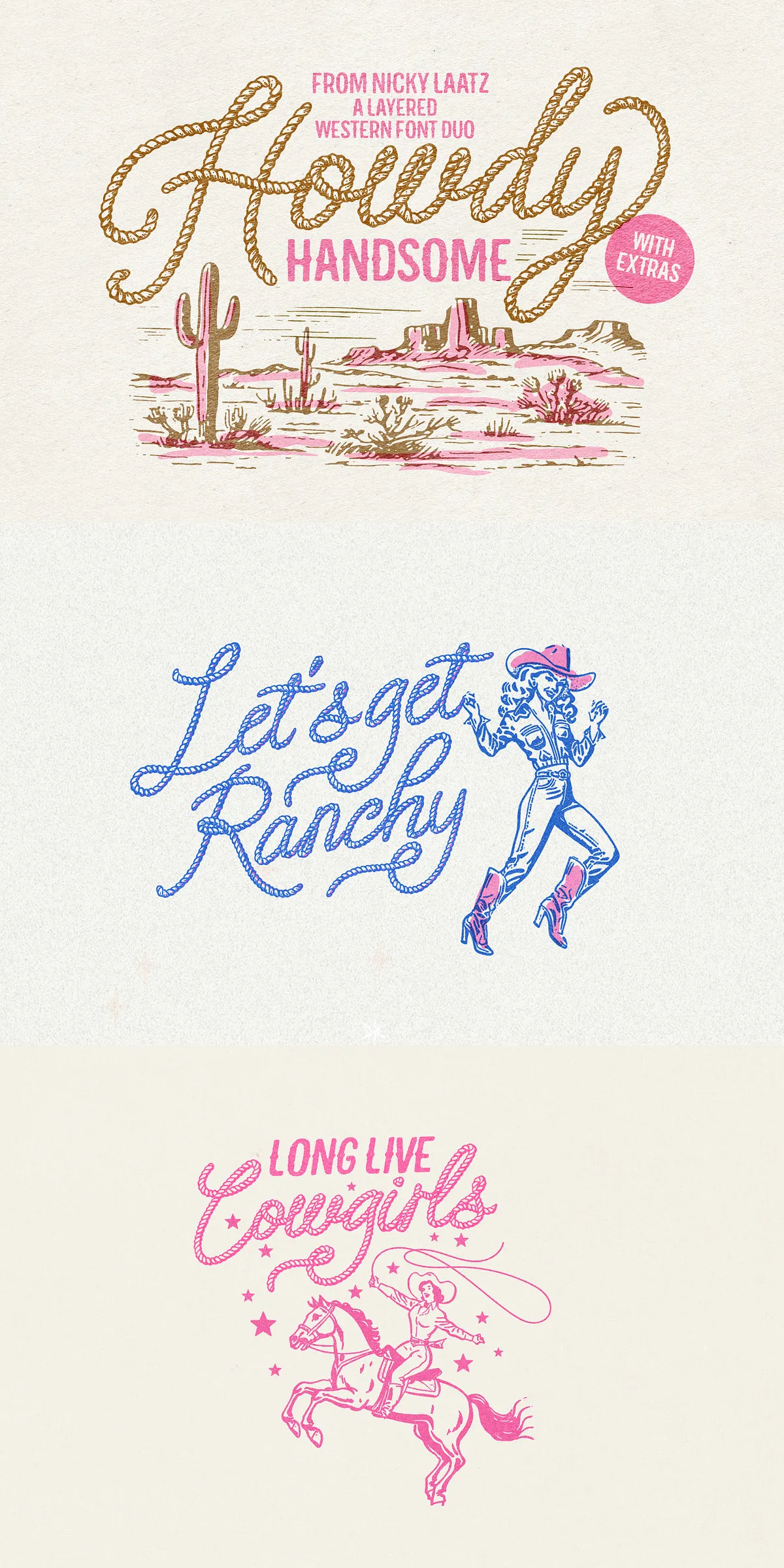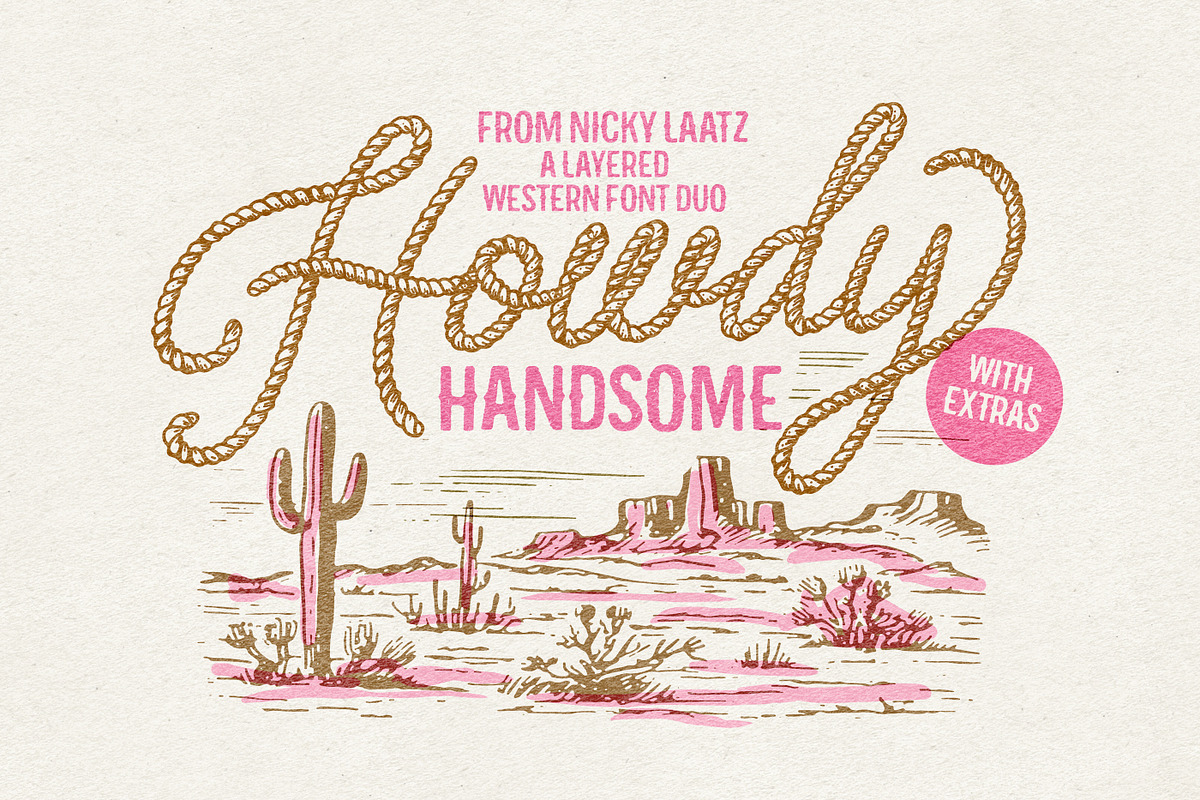
Howdy Handsome Layered Font Duo
Discover the bold and dynamic spirit of the Wild West with the Howdy Handsome Layered Western Font Duo. This carefully crafted font set brings the rugged energy and playful charm of cowboy culture right into your design projects. Featuring a captivating rope script alongside a sturdy all-caps western sans serif, this duo opens up endless possibilities for layered, standout typography that makes a statement. Ideal for posters, branding, packaging, and any project that demands authentic western flair, Howdy Handsome empowers you to create with confidence and style.
Distinctive Rope Script with Extensive Layering
The heart of the Howdy Handsome collection is the splendiferous rope script, designed with 17 versatile layering and style options. This script font dazzles with its intricate rope-inspired strokes, capturing the essence of classic western design while offering a modern edge. Beyond its detailed stroke styles, this font supports an extensive selection of OpenType alternates, ligatures, and cowboy-themed swashes that let you customize your typography with flair and creativity. A complementary upright version, with less obliqueness, is included to provide additional style flexibility, ensuring your text can adapt perfectly to your visual needs.
Robust Western Sans Serif Complements the Duo
Balancing the expressive rope script, the all-caps western sans serif brings a bold and structured presence. Featuring subtle median spurs and 9 layering and style options, this font ensures your designs retain readability and punch. The sans serif also offers a slanted or oblique version, providing a dynamic feel without compromising clarity. Together, these fonts create a perfect partnership, combining decorative allure with practical legibility.
Bonus Graphics and Reference Materials to Boost Creativity
Perfect Use Cases for Howdy Handsome Fonts
Whether you are crafting eye-catching event posters, authentic branding for local businesses, rustic packaging designs, or engaging social media content, Howdy Handsome provides the tools to make your typography unforgettable. The layering options allow designers to build complex, textured wordmarks and headers that capture attention with a western flair. This font duo is ideal for anyone looking to bring a playful yet authentic cowboy aesthetic to their visual identity.
Bring the spirit of the West to life with Howdy Handsome, a font duo packed with style versatility, creative details, and practical extras to elevate any design work. Its robust layering options, comprehensive stylistic alternatives, and bonus graphics make it a fantastic choice for designers who want to command attention with a bold, thematic edge.